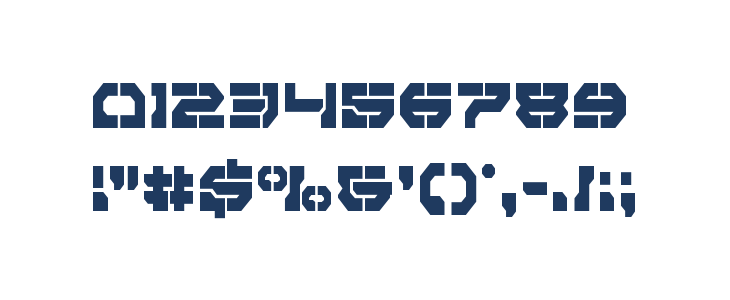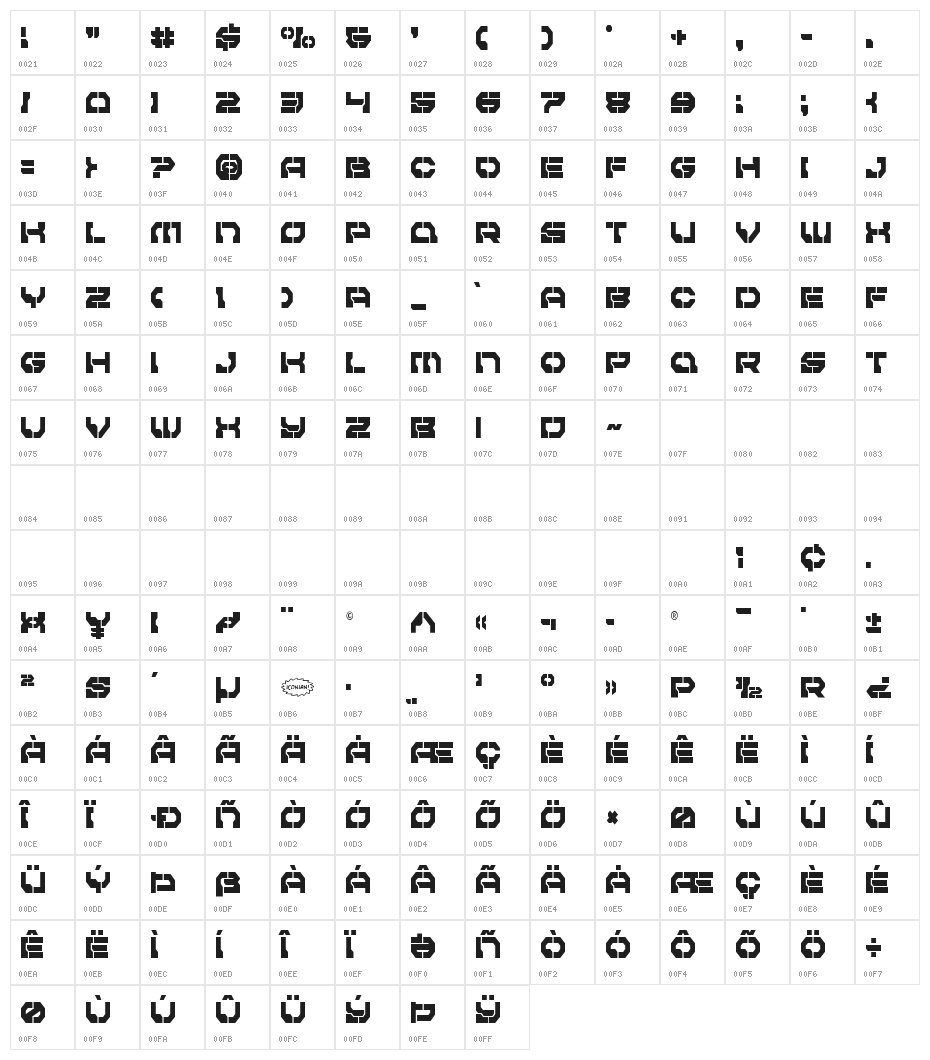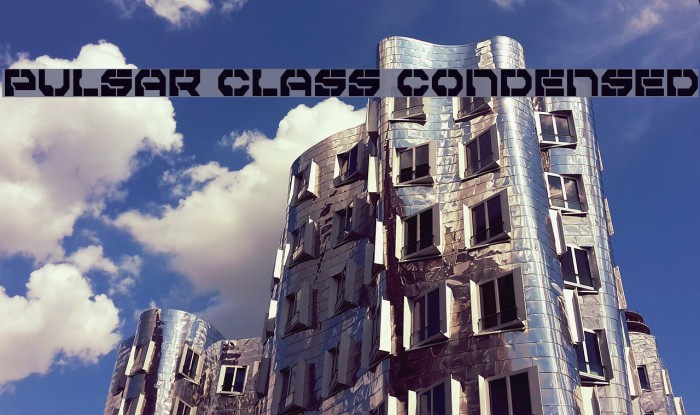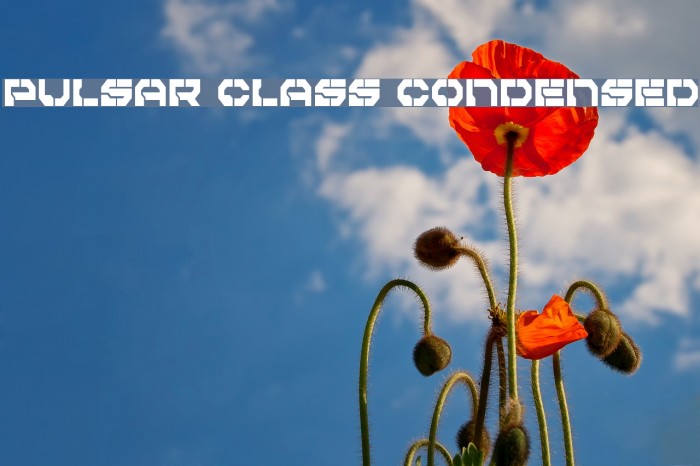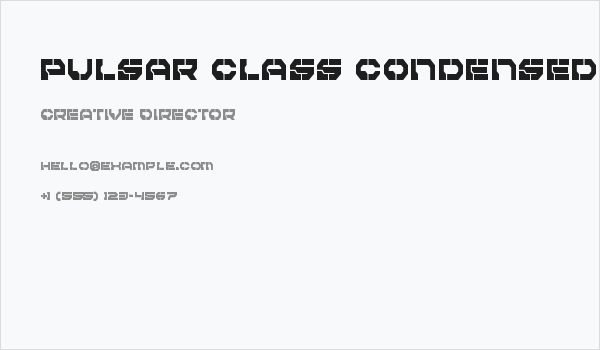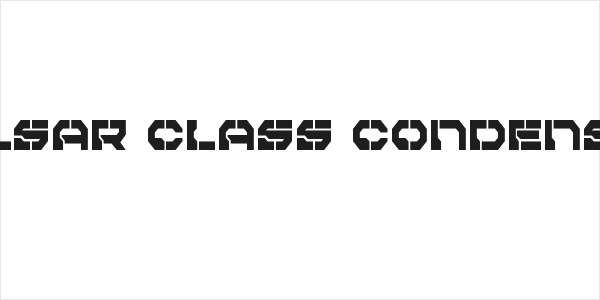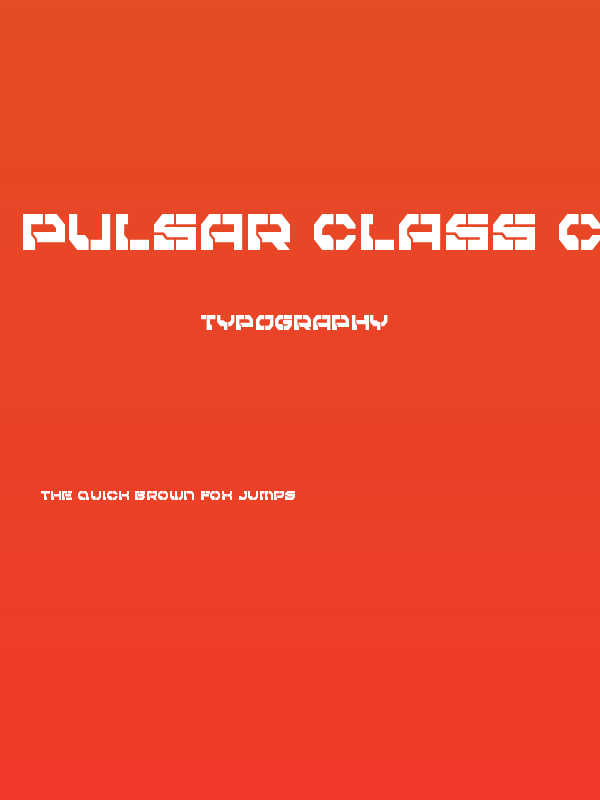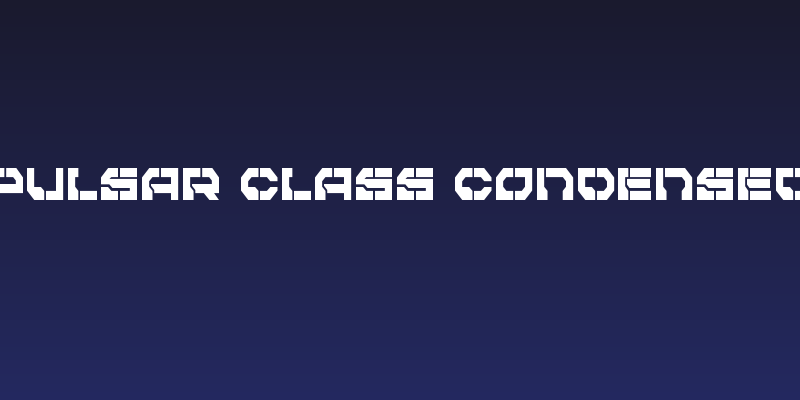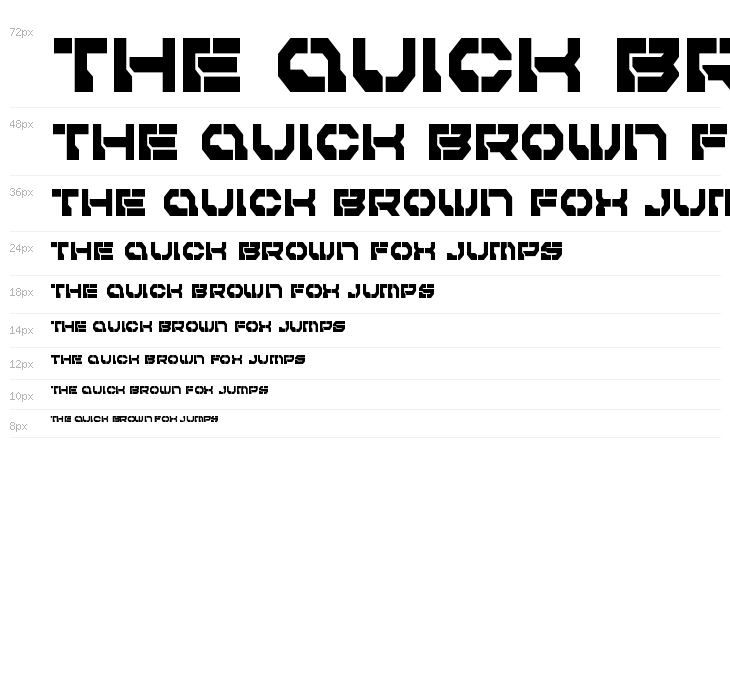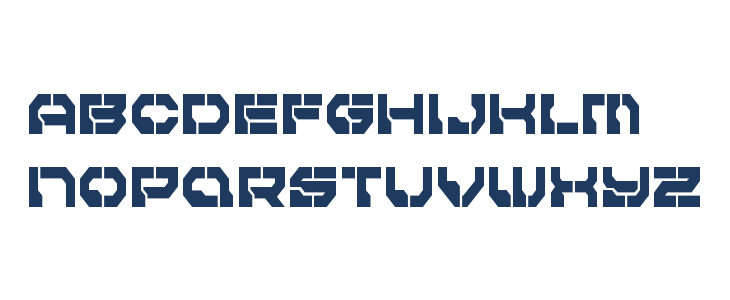
Pulsar Class Condensed Font
Pulsar Class Condensed Description
This font features a bold and futuristic design with geometric shapes and sharp angles. Each character is constructed with solid, block-like forms that convey a sense of strength and modernity. The condensed style allows for efficient use of space, making it suitable for impactful headlines and titles. The uniformity in stroke width across characters provides a cohesive look, while the angular cuts add a dynamic and edgy feel. This font is ideal for projects that require a contemporary and tech-inspired aesthetic.
| Proposed Projects | Ideal for technology branding, sci-fi movie posters, video game titles, and modern advertising campaigns. |